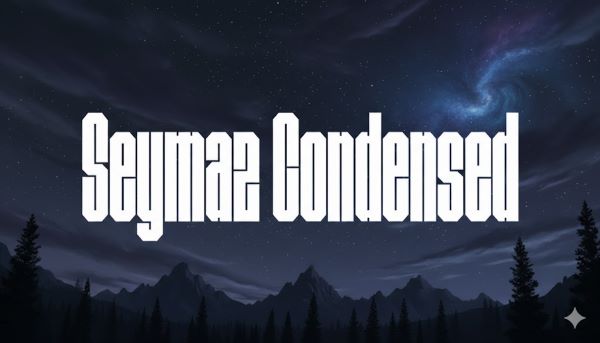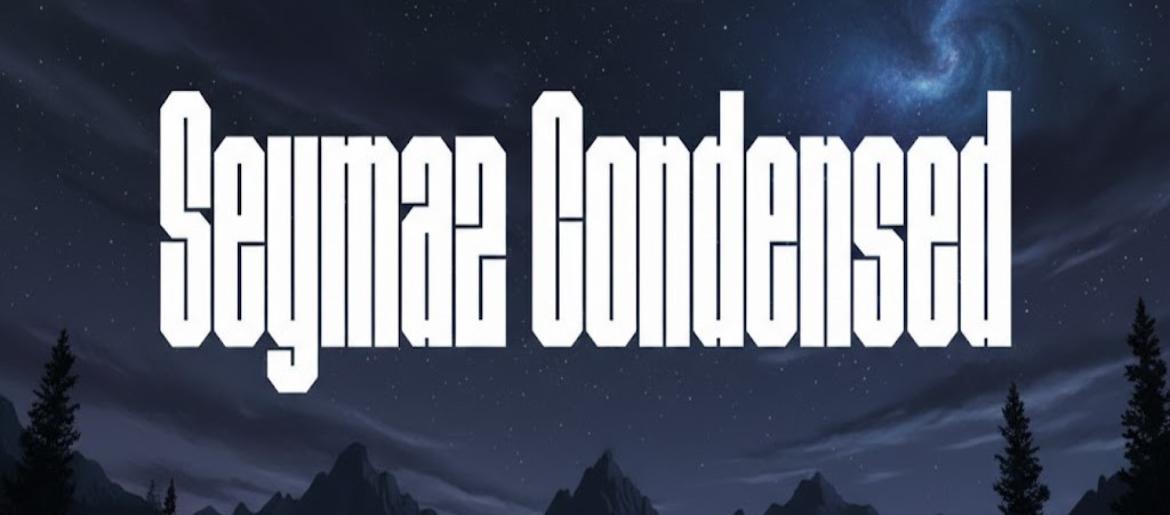
Seymaz Condensed Font
Seymaz Condensed Font delivers Mateo Broillet’s versatile variable design drawing inspiration from elegant late 19th-century Grecian typefaces with modern sophistication. This dynamic display font family boasts eight distinct weights plus slanted styles offering comprehensive typographic flexibility perfect for contemporary branding demanding refined looks. Seymaz Condensed’s bold condensed styling combined with strong sharp character excels in logo design, editorial headlines, poster typography, corporate branding, packaging design, architectural signage, and any application demanding powerful condensed typography that commands attention while maintaining sleek elegance across professional applications.